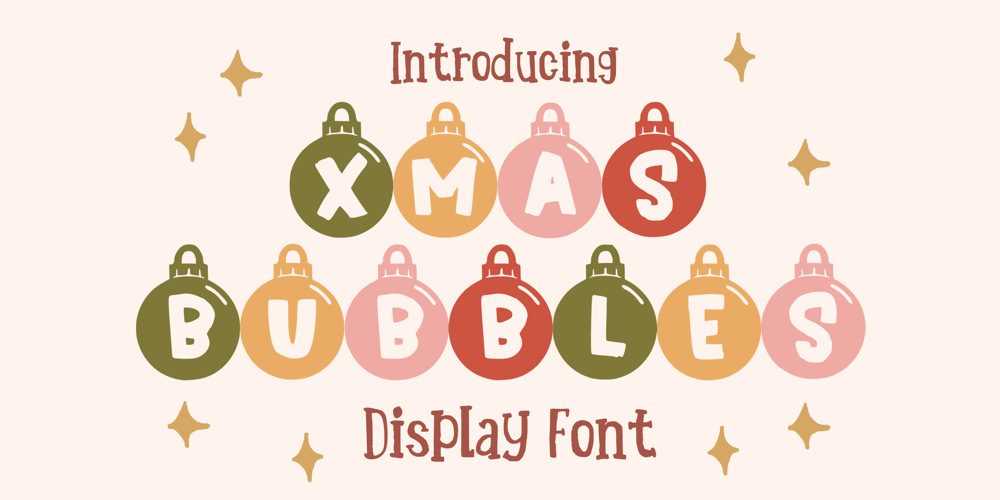
Xmas Bubbles Font Family was designed by Gabriel Valentinus and published by Mvmet. Xmas Bubbles contains 1 styles and family package options. Xmas Bubbles is a cool ornamental Christmas display font. You can use it for anything ranging from t-shirts, kids’ book designs, and greeting cards to stickers and posters, or anything that needs a casual touch. Fall in love with its incredibly versatile style, and use it to create lovely designs!